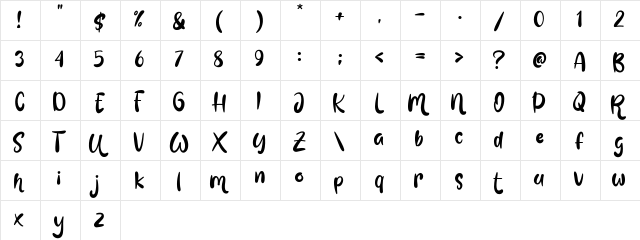
Love Mint Regular
| Foundry | Khurasan |
| Designer | Khurasan |
Design Context for Love Mint Typeface
Love Mint is a composed and adaptable typeface that performs quietly and consistently across a wide range of design contexts.